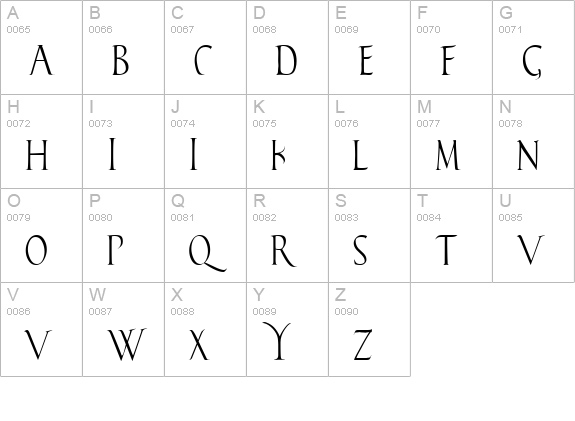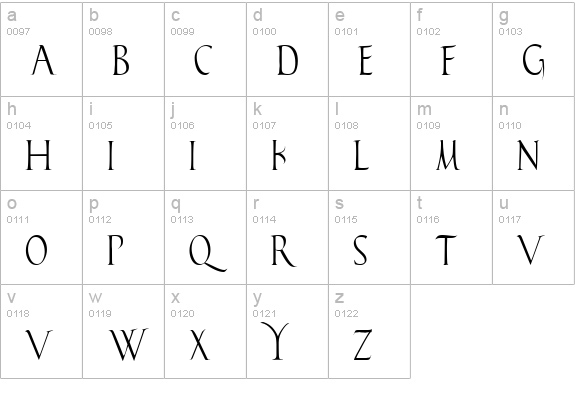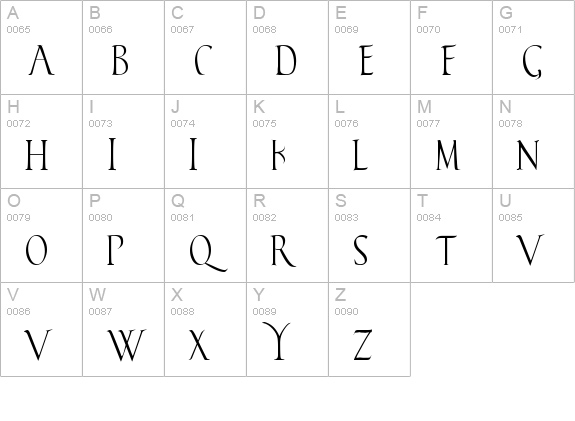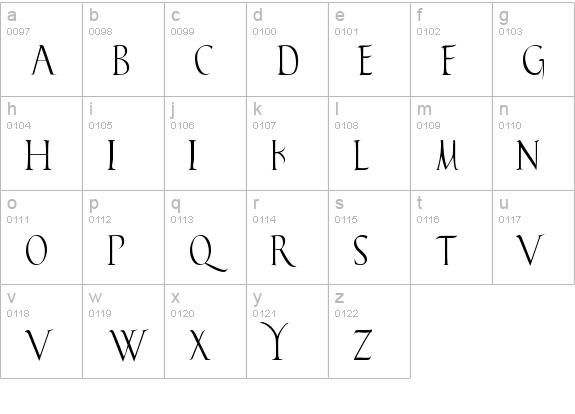
Falconis Font Details
Falconis font is a sleek and modern typeface that exudes elegance and sophistication. With its clean lines and sharp angles, Falconis font is perfect for creating eye-catching designs that demand attention. This versatile font is suitable for a wide range of design projects, from branding and advertising to packaging and web design. The best part? Falconis font is completely free to download at FontsMarket.com! You can easily access this amazing font and enhance your creative projects without any cost. Don't miss out on the opportunity to add Falconis font to your font collection and elevate your designs to the next level. Download Falconis font today and let your creativity soar!